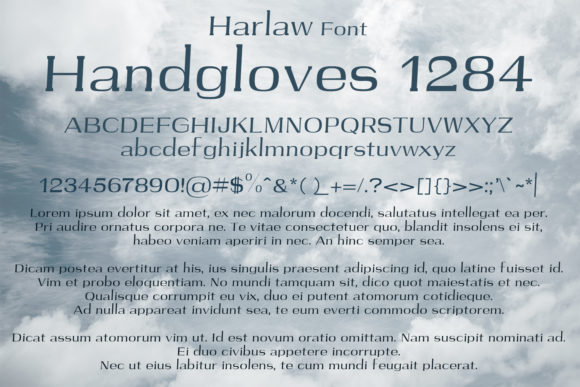
Discover the Elegance of Harlaw Font: Elevate Your Designs with this Versatile Serif Font
Are you on the hunt for a font that exudes elegance, sophistication, and adaptability? Look no further than the Harlaw font. This neat serif font has been making waves in the design community, and for good reason. Its tall and slender lines make it a perfect fit for a wide range of design ideas, from elegant branding to stylish crafting projects. In this article, we’ll dive into the world of Harlaw font, exploring its features, benefits, and uses, and why it’s a must-have for designers and crafters alike.
The Features of Harlaw Font
So, what makes Harlaw font so special? For starters, its serif design gives it a classic and timeless look that’s perfect for designs that require a touch of sophistication. The font’s tall lines make it easy to read, even at smaller sizes, making it a great choice for body text or captions. But what really sets Harlaw apart is its adaptability. Whether you’re designing a logo, brochure, or social media graphics, Harlaw font can be used confidently, knowing it will deliver a stunning outcome.
The Benefits of Using Harlaw Font
So, why should you choose Harlaw font for your next design project? Here are just a few benefits of using this versatile font:
• Elegance and Sophistication: Harlaw font’s serif design and tall lines give it an air of elegance and sophistication, perfect for high-end branding and designs.
• Adaptability: Whether you’re designing for print or digital, Harlaw font can be used across a wide range of design ideas, from minimalist to ornate.
• Readability: Harlaw font’s clear and concise lines make it easy to read, even at smaller sizes.
• Uniqueness: With its unique blend of classic and modern elements, Harlaw font is sure to make your designs stand out from the crowd.
Using Harlaw Font in Your Designs
So, how can you use Harlaw font in your designs? The possibilities are endless! Here are a few ideas to get you started:
• Branding and Logos: Use Harlaw font to create elegant and sophisticated branding and logos that exude professionalism.
• Print Design: Harlaw font is perfect for print designs, such as brochures, flyers, and business cards.
• Digital Design: Use Harlaw font in your digital designs, such as social media graphics, website headers, and email newsletters.
• Crafting Projects: Harlaw font is also perfect for crafting projects, such as scrapbooking, journaling, and card making.
Tips for Getting the Most Out of Harlaw Font
To get the most out of Harlaw font, here are a few tips to keep in mind:
• Experiment with Different Sizes: Harlaw font looks great at a range of sizes, from small captions to large headlines.
• Play with Color: Harlaw font looks stunning in a range of colors, from classic black and white to bold and bright hues.
• Combine with Other Fonts: Harlaw font pairs well with a range of other fonts, so don’t be afraid to experiment with different combinations.
In conclusion, Harlaw font is a versatile and elegant serif font that’s perfect for designers and crafters alike. Its adaptability, readability, and uniqueness make it a must-have for any design project. Whether you’re looking to create elegant branding, stylish print designs, or eye-catching digital graphics, Harlaw font is the perfect choice. So why not give it a try and see the amazing results for yourself?